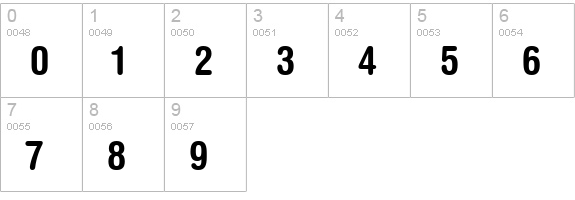
Context Rounded Condensed SSi Bold Condensed Font Details
Context Rounded Condensed SSi Bold Condensed is a strong, high-contrast, condensed-width variant in the Context typeface family \xE2\x80\x94 well suited to headlines, attention-grabbing titles, and strong calls-to-action.
The Context Rounded Condensed SSi Bold Condensed font is a sleek and modern typeface that exudes confidence and sophistication. Its bold condensed design lends a strong and impactful presence to any design project, making it perfect for headlines, titles, and branding materials. This versatile font strikes the perfect balance between professionalism and contemporary style, making it suitable for a wide range of applications. Whether you're designing a poster, website, or logo, the Context Rounded Condensed SSi Bold Condensed font will help your text stand out and make a lasting impression. Best of all, this high-quality font is available for free download at FontsMarket.com. With just a few clicks, you can add this stylish typeface to your font library and start using it in your projects right away. Don't miss out on this opportunity to elevate your designs with the Context Rounded Condensed SSi Bold Condensed font - download it for free today!